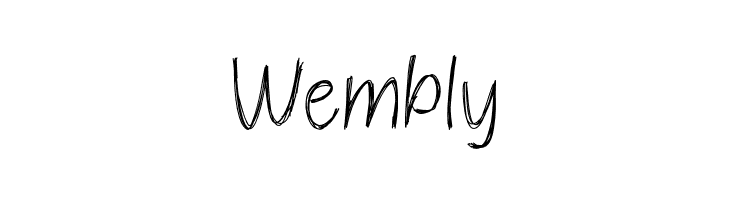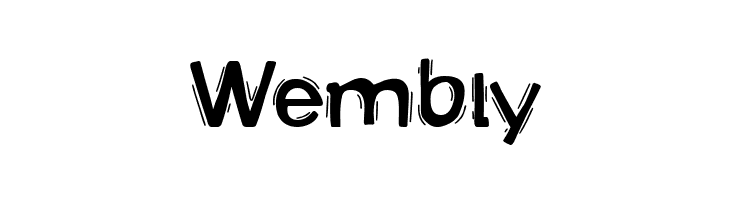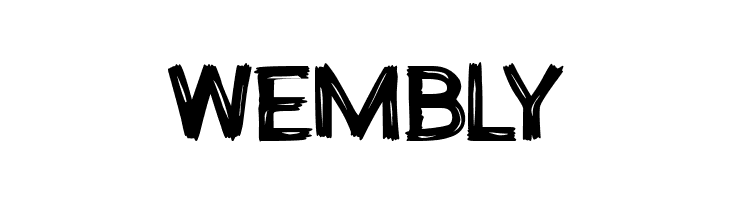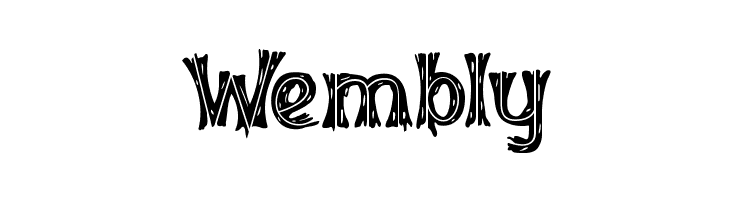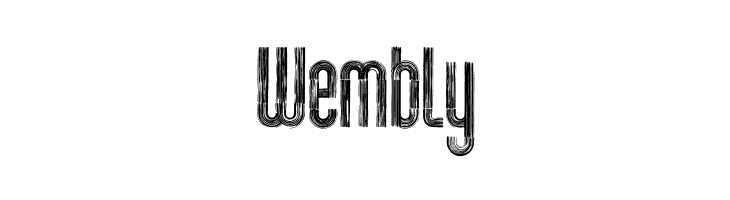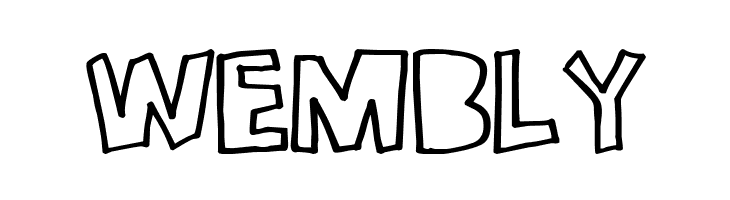
A bold, textured font with a hand-drawn, sketch-like appearance.
A sketch-like, hand-drawn font with dynamic and irregular strokes.
A bold, hand-drawn font with a playful, sketch-like appearance.
A bold, hand-drawn font with a sketch-like, textured appearance.
A hand-drawn, sketch-like font with an edgy and artistic style.
A bold, sketch-style font with a hand-drawn, textured appearance.
Bold, sketch-style decorative font.
Light, sketchy handwritten font with tall, expressive forms.
Sketchy, hand-drawn uppercase font with expressive, irregular strokes.
Expressive handwritten font with tall, irregular forms and sketchy strokes.
A rough, sketchy handwritten font with tall, narrow characters and expressive strokes.
Hand-drawn, outlined display font with a sketchy, three-dimensional look.
Expressive, sketchy handwritten script with tall, angular forms.
Bold, sketchy display font with a horror and playful theme.
Distressed, hand-drawn display font with rough, sketchy strokes.
A bold, whimsical hand-drawn display font with sketchy, energetic strokes.
Bold, hand-drawn display font with rough, sketchy texture.
Handwritten, playful font with tall, narrow, sketchy letters.
Decorative, sketch-style sans-serif with condensed, textured letterforms.
Hand-drawn dingbat font with garage sale item illustrations.
A playful, hand-drawn outlined font with a quirky, cartoonish style.
A bold, hand-drawn font with a dynamic and distressed style.
Hand-drawn sign language gestures form each character.
A playful, hand-drawn font with a dynamic and artistic style.
A playful, hand-drawn font with bold outlines and a cartoonish style.
A decorative font of hand-drawn cartoon faces, each with unique expressions.
A scratchy, hand-drawn font with a dynamic and textured style.